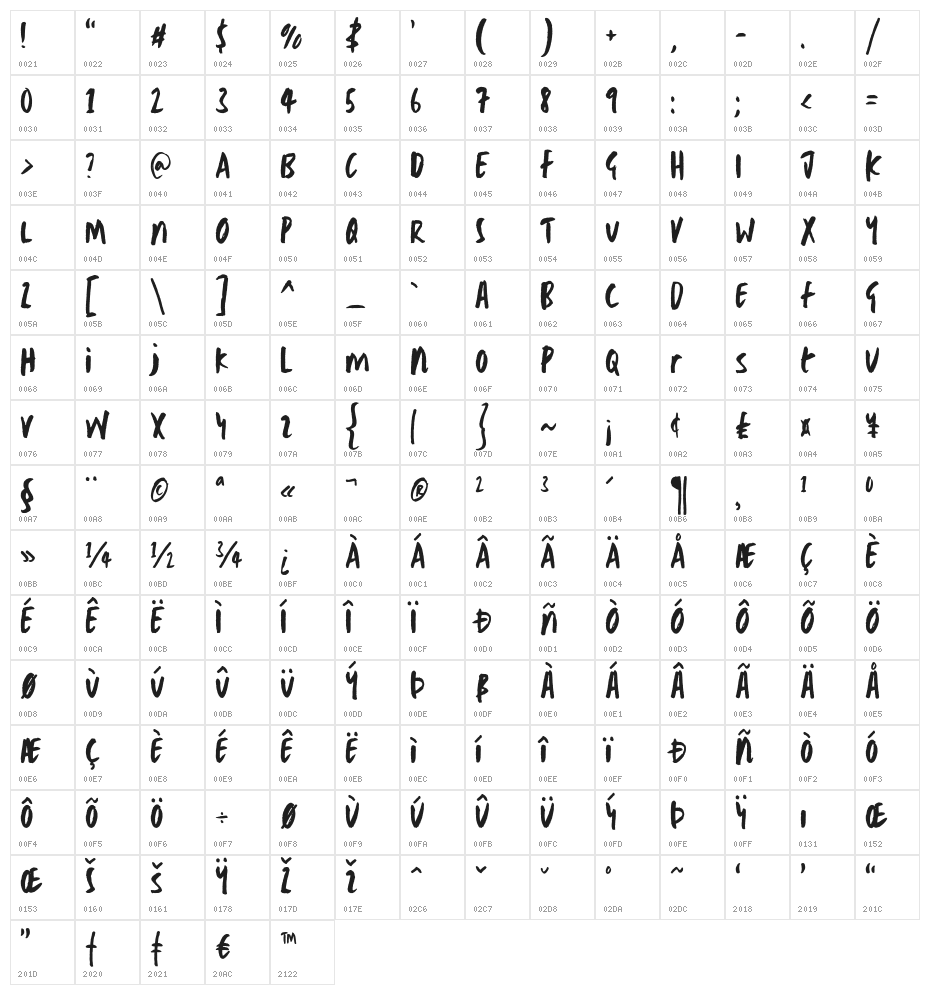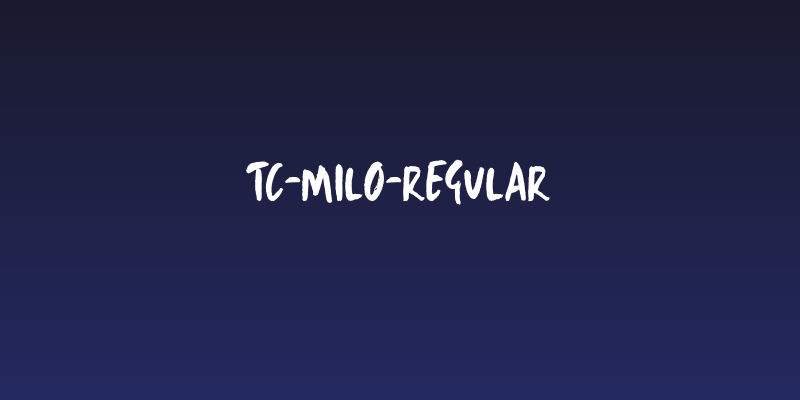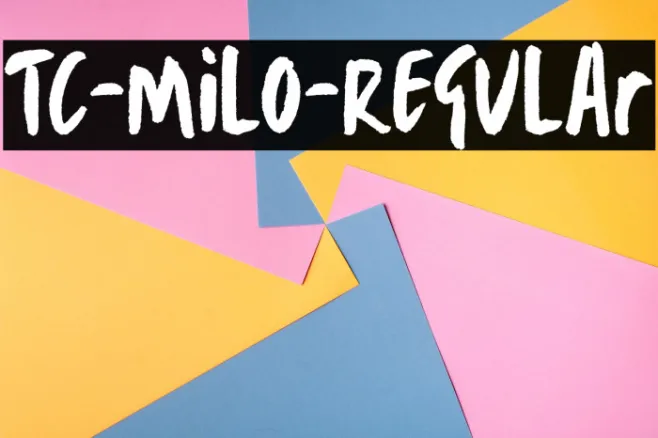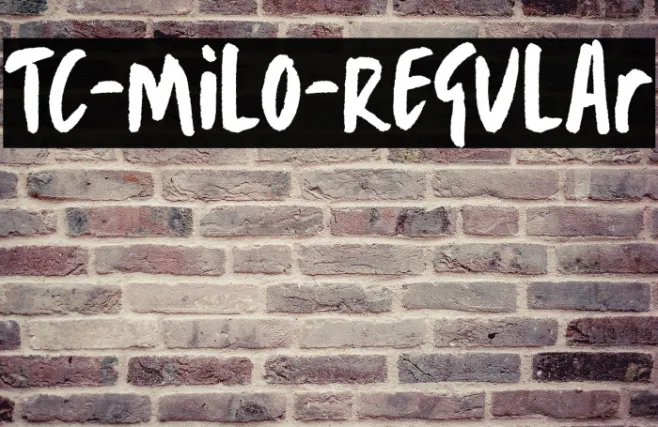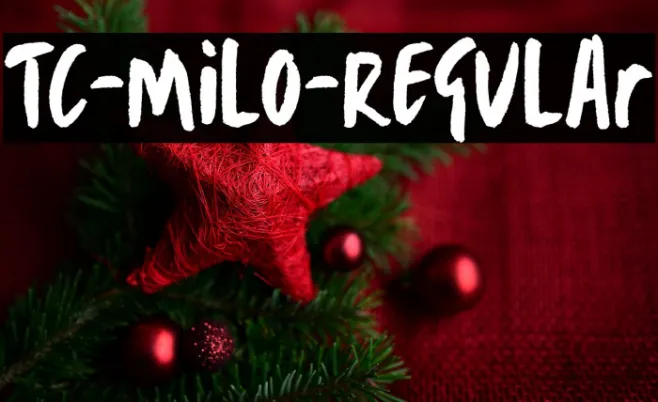
TC-Milo-Regular Font
TC-Milo-Regular Description
This font features a bold, hand-drawn style with a playful and energetic appearance. The letters are thick and slightly irregular, giving them a casual and informal feel. The strokes are consistent in weight, providing a uniform look across all characters. The uppercase and lowercase letters maintain a cohesive style, with rounded edges and a slightly slanted orientation. Numbers and special characters follow the same design principles, ensuring a harmonious overall appearance. The font's organic and lively nature makes it suitable for creative and artistic projects.